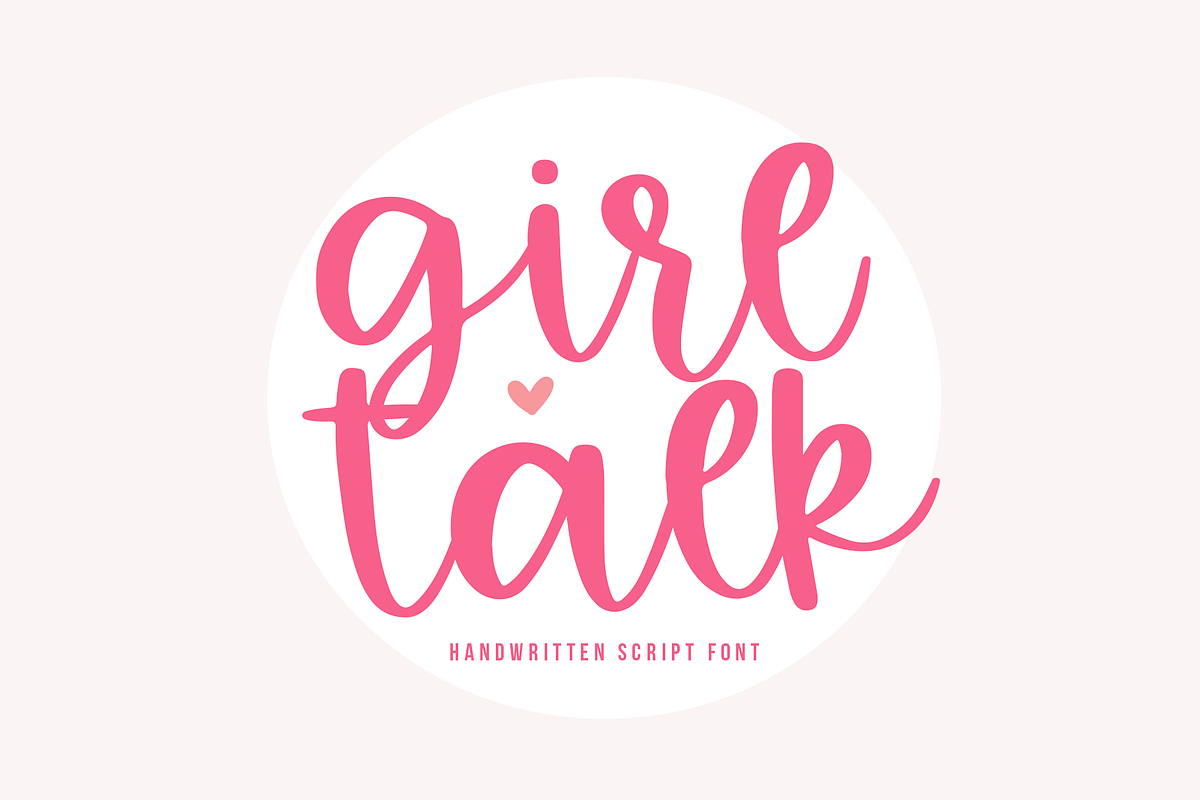
Girl Talk | Handwritten Script Font Free Download
Girl Talk Handwritten Script Font Free Download
Girl Talk Handwritten Script Font Free Download is a fun, flirty, and effortlessly chic typeface that captures the charm of casual handwriting. With its bouncy baseline, smooth curves, and feminine personality, this font is perfect for social media posts, branding, greeting cards, blog headers, and lifestyle designs. It brings a playful yet polished look to any creative project.
Whether you're designing for fashion, beauty, or personal content, Girl Talk Handwritten Script Font Free Download delivers a fresh and friendly vibe. The font includes stylish alternates and ligatures to help you create a more natural handwritten feel. It's ideal for adding a personal, expressive touch to your typography.